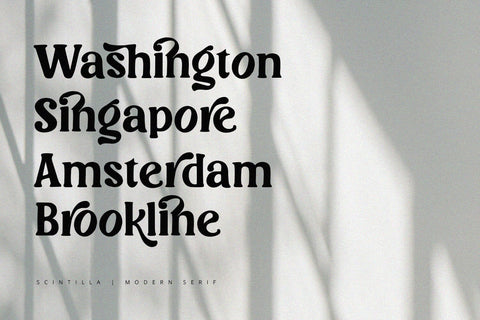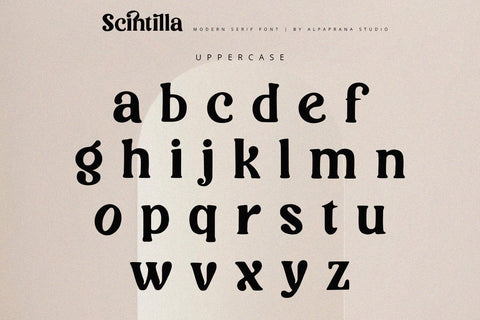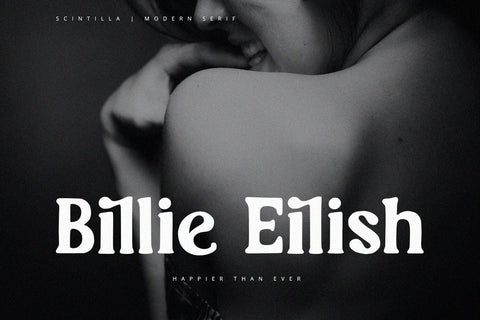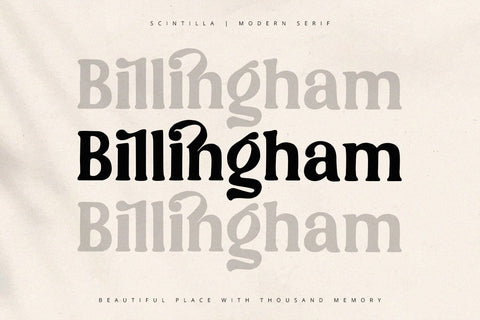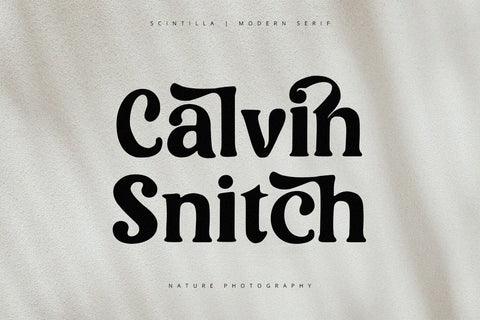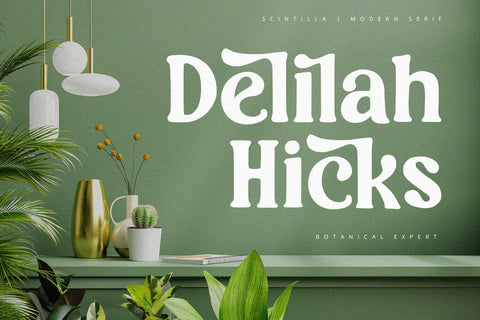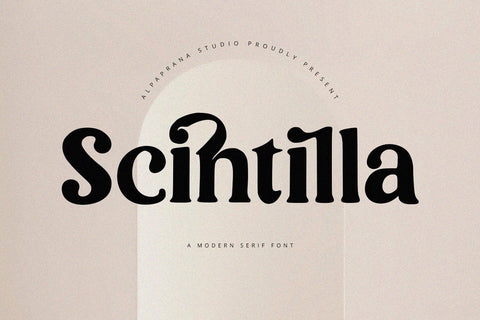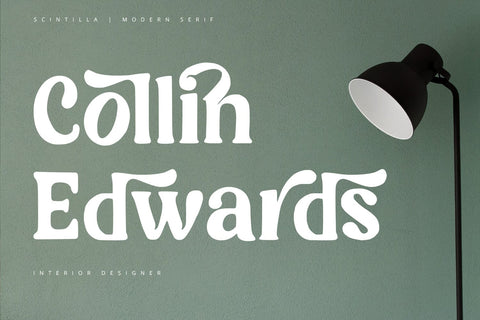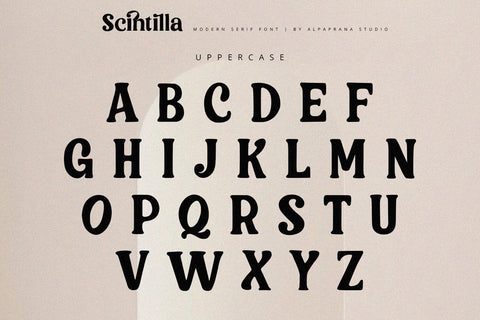
Scintilla - Modern Serif Font
Scintilla is a modern serif font with natural and casual feels. It will be perfectly used for Branding, Logo Design, Lettering, Logotype, Clothing, Poster, magazine, packaging, posters, shopping bags, t-shirts, book covers, photography, special events and other design project.